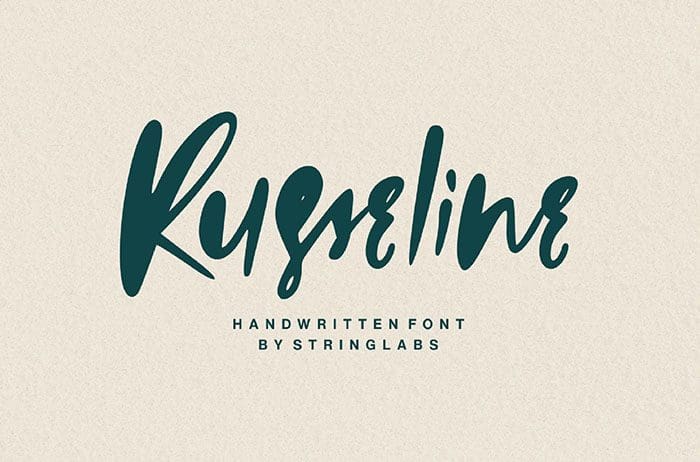
Free Russeline Handwritten Font
Russeline Handwritten Font
Free Russeline Handwritten Font can be used for any variety of purposes, such as: Photography, Wedding, Ceremony, Packaging Products, Logo Type, Branding, T-Shirt Design, Website/Blog, Headline Magazine, Brochures, etc. This font is available only for personal use. Created this font by StringLabs. You can also search more free Handwritten Fonts. Thanks!